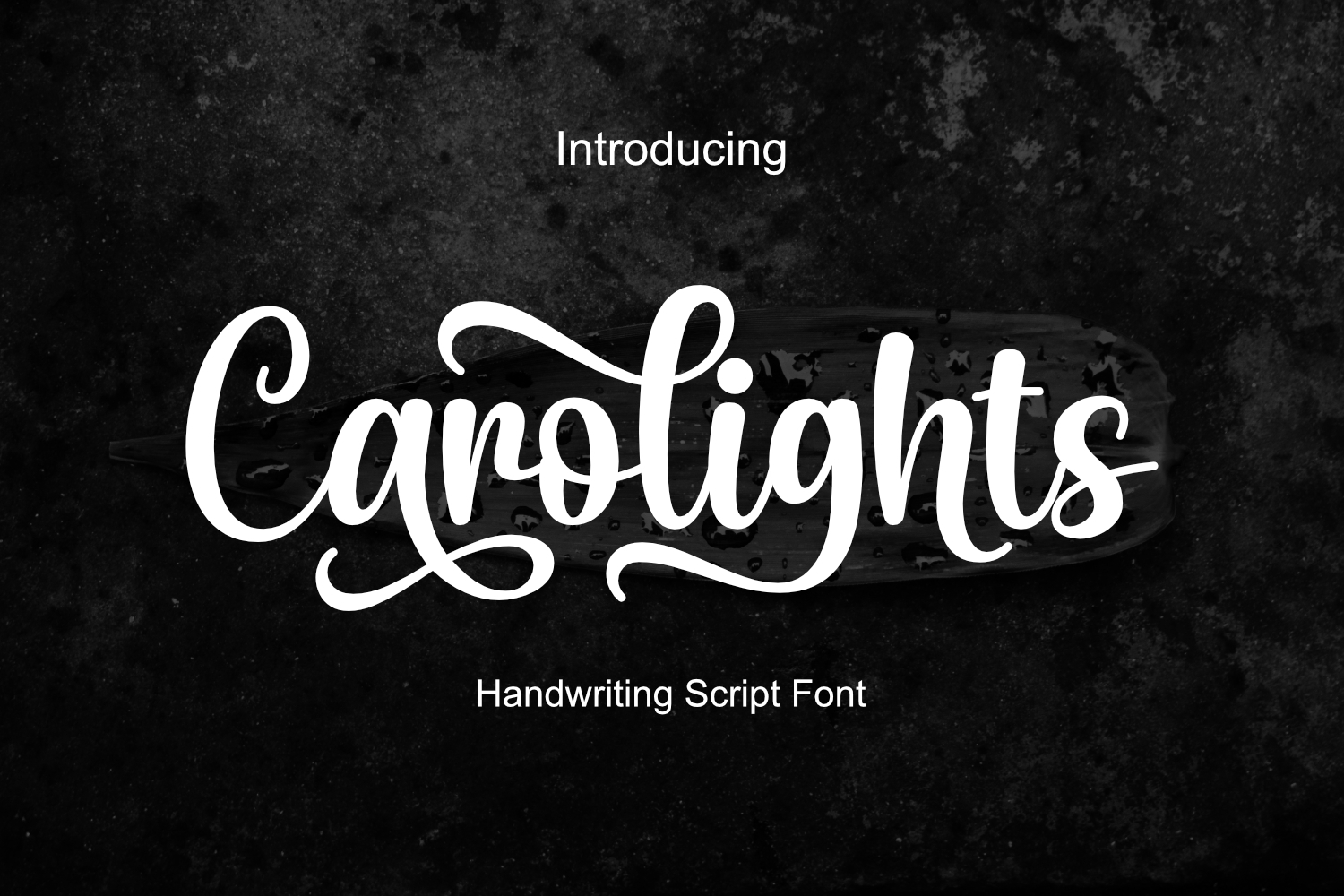
Carolights - Handwritten Script Font
Bring elegance and personality to your designs with Carolights, a modern handwritten script font that blends smooth curves and stylish swashes. Perfect for branding, logos, invitations, packaging, and social media, Carolights adds a warm and creative touch to any project. With its bold yet graceful flow, this font makes every word shine with charm and confidence.